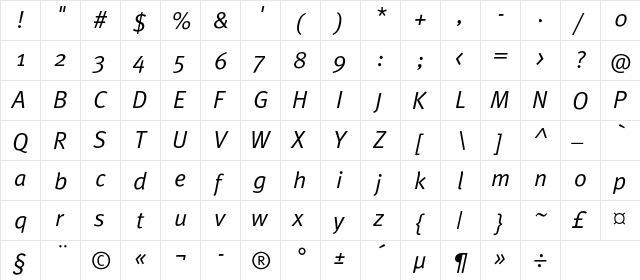
MetaNormalC Italic
Design Context for MetaNormalC Typeface
MetaNormalC takes a measured approach to typography — its balanced proportions and neutral character make it a reliable workhorse for both digital and print work. Its italic angle brings a sense of urgency and motion to the letterforms.
Pro Tip: Try MetaNormalC for annotation and caption copy alongside an upright companion — the contrast in angle creates a dynamic but ordered typographic system.